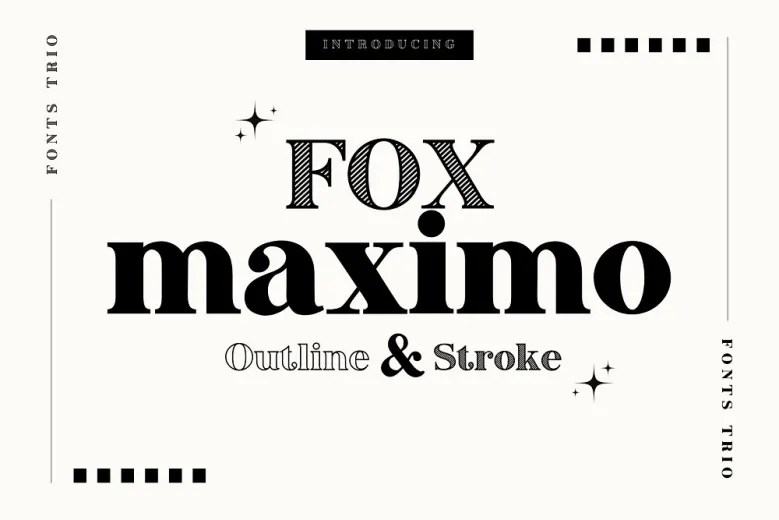
Fox Maximo Font
Fox Maximo is a sophisticated serif font that features three elegant and modern styles. Its versatile design allows it to seamlessly blend with both contemporary and classic trends, making it a great choice for a wide range of applications. Whether you’re working on a blog, creating logos, branding materials, advertisements, or invitations, Fox Maximo adds a touch of refinement to your projects.
Additionally, this font is perfect for decorating planners, photo albums, greeting cards, and other design elements. Its stylish and adaptable nature ensures it will enhance any creative endeavor with a blend of elegance and modernity.